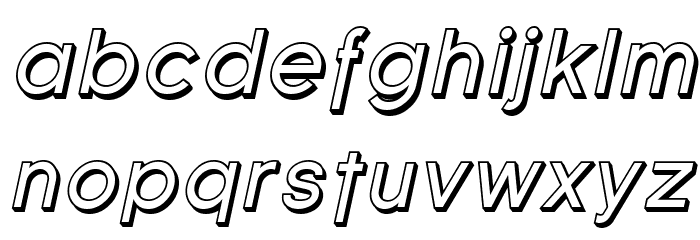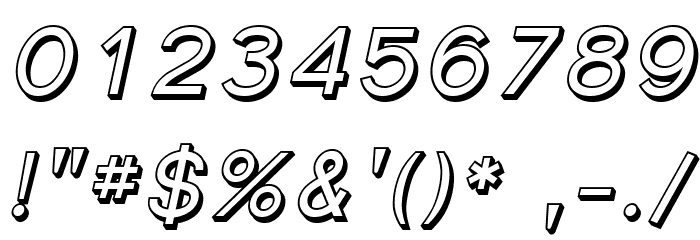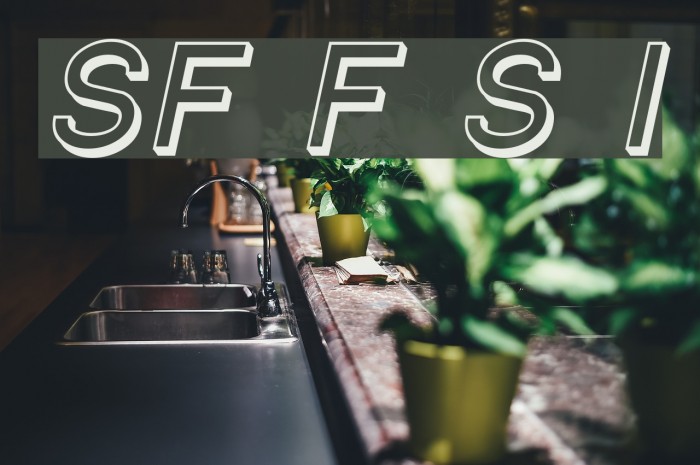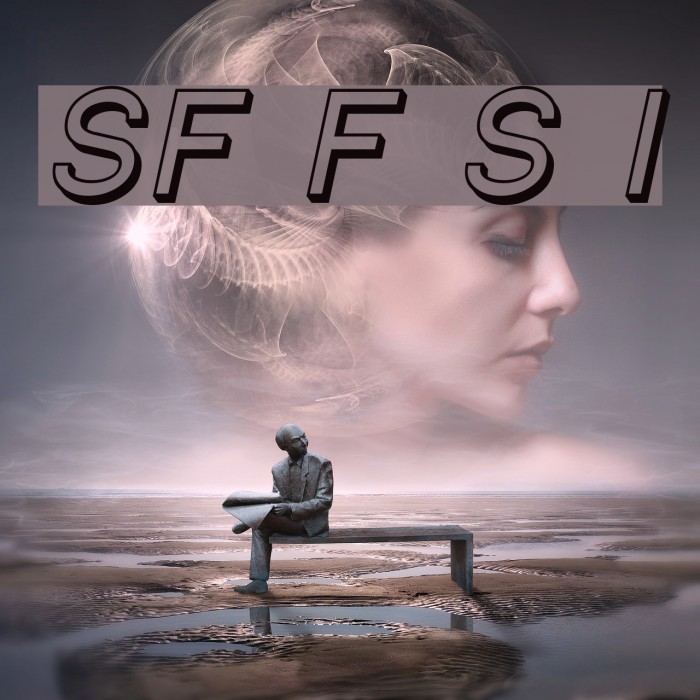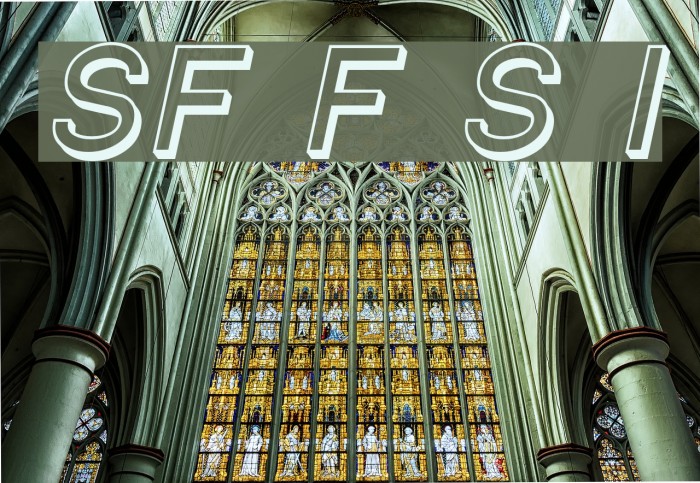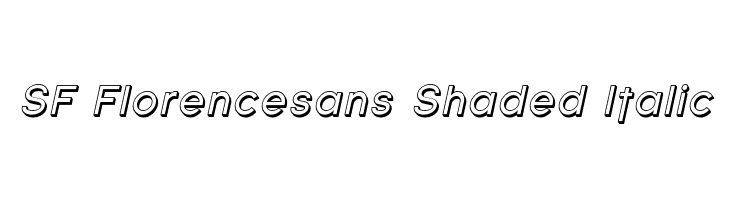
SF Florencesans Shaded Italic Font
This font features a distinct shaded effect that gives it a three-dimensional appearance. The italicized style adds a dynamic and forward-leaning character to the text. Each letter is outlined with a bold stroke, enhancing its visibility and making it stand out. The uppercase and lowercase letters maintain a consistent design, ensuring readability and aesthetic appeal. The numerals and special characters are crafted with the same attention to detail, making them suitable for various applications. The overall design is modern and stylish, perfect for projects that require a touch of sophistication and flair.
A modern, shaded italic font with bold outlines and a three-dimensional look.